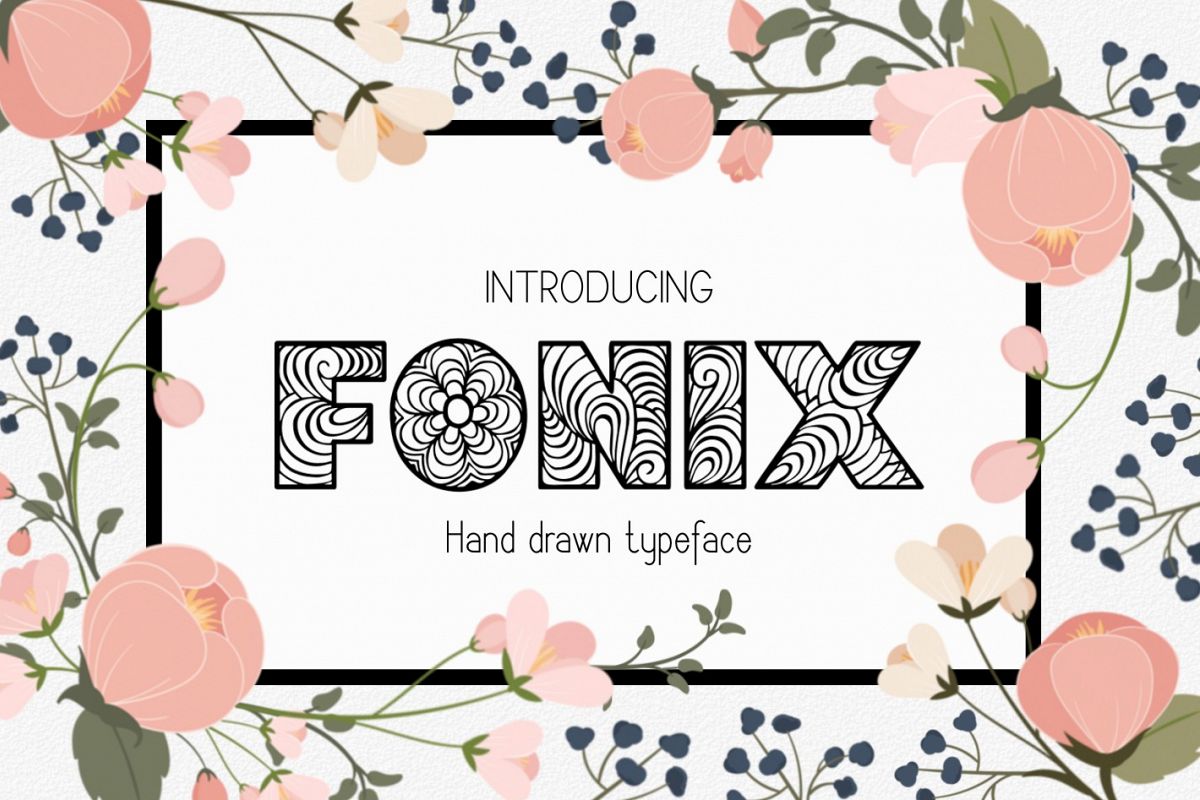
Fonix Font
Fonix-Regular
Introducing Fonix hand crafted font. Created for crafters who look for fresh fancy decorated letters.
The full font contains capital letters and numbers (see picture)